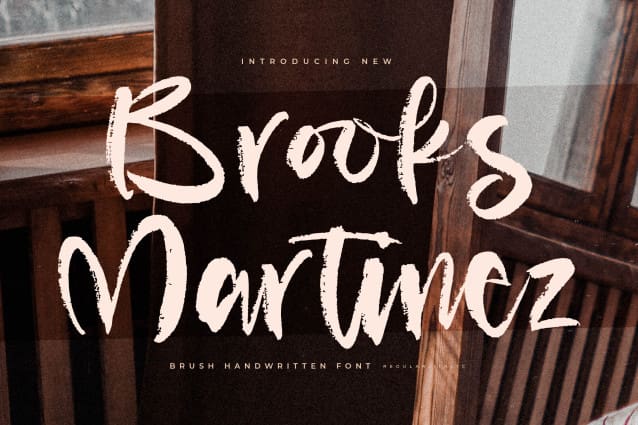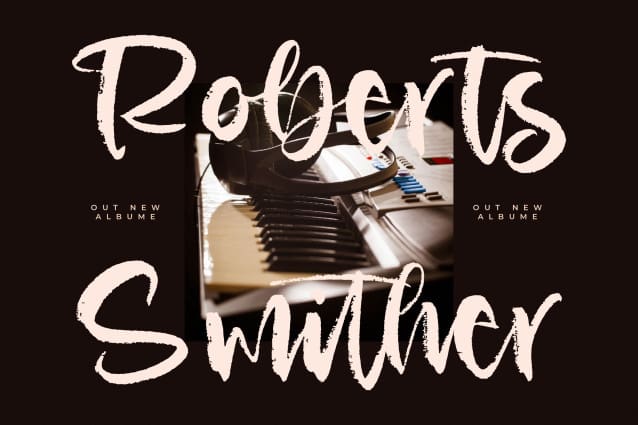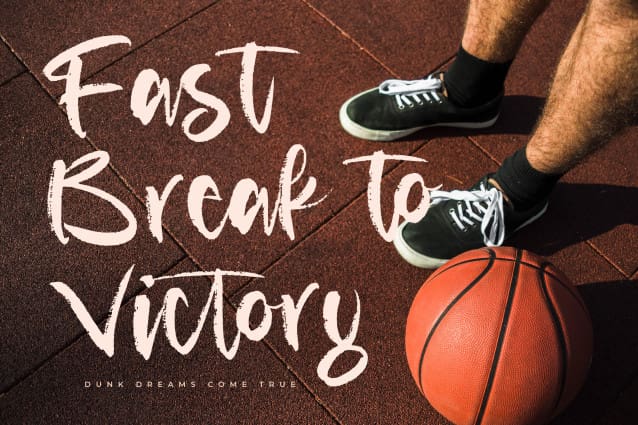
Brooks Martinez Font
Brooks Martinez Font – Brush Handwritten Font , from Letterena, is a Luxury Script font, suitable for any projects such as: logos, branding projects, homeware designs, product packaging, mugs, quotes, posters, shopping bags, t-shirts, book covers, name card, invitation cards, greeting cards, label, photography, watermark, special events, and all your other luxury and beautiful projects that need a Luxury Script taste.